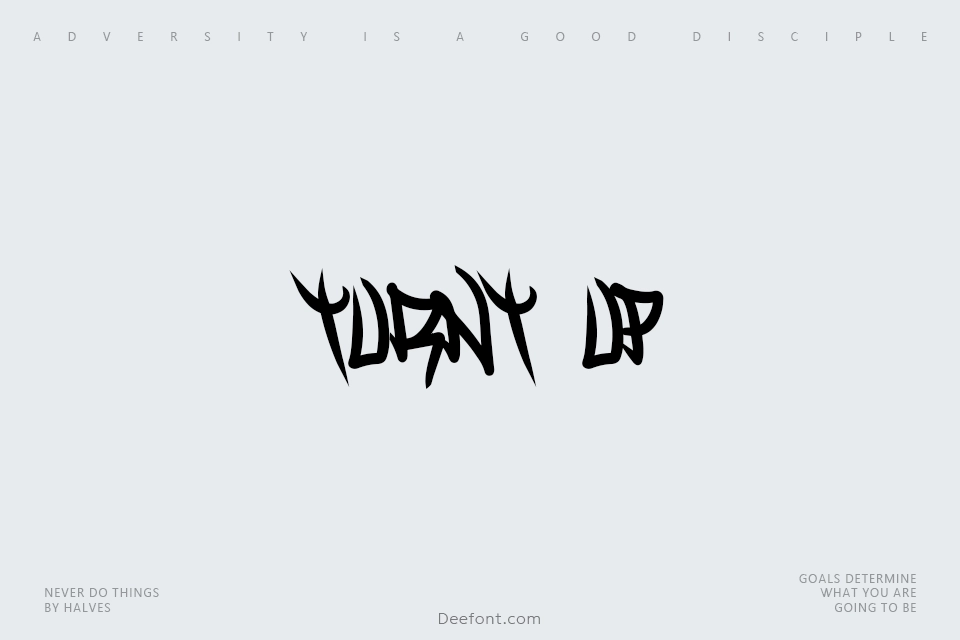
Turnt Up Font
Turnt Up is a bold and modern graffiti script font designed to make text stand out with distinctive style, thick strokes, sharp angles, and unique letterforms. This versatile typeface works exceptionally well for posters, flyers, logos, and branding materials, offering both impact and visual appeal for creative designs.